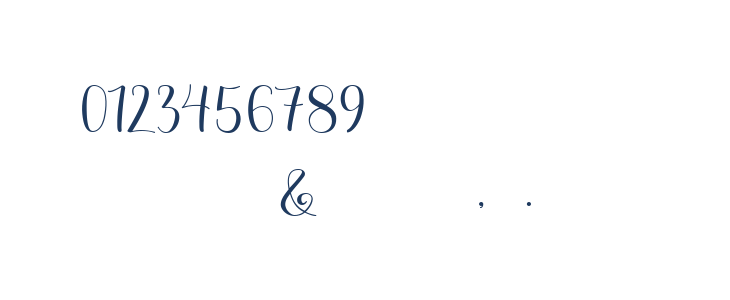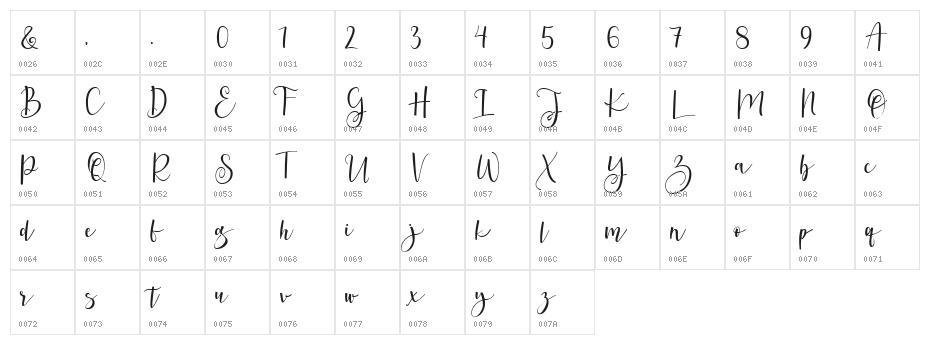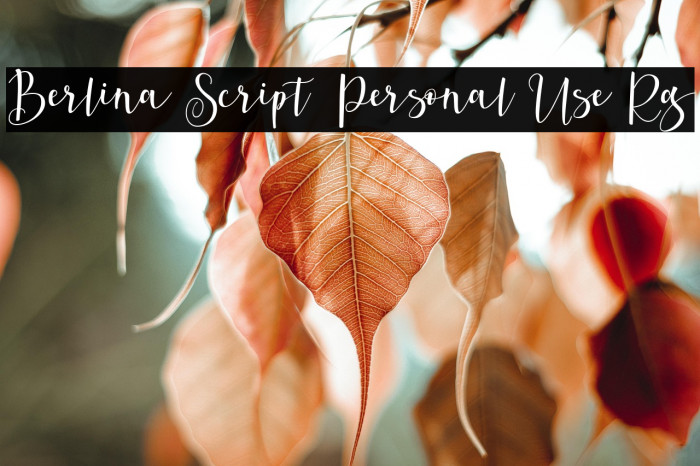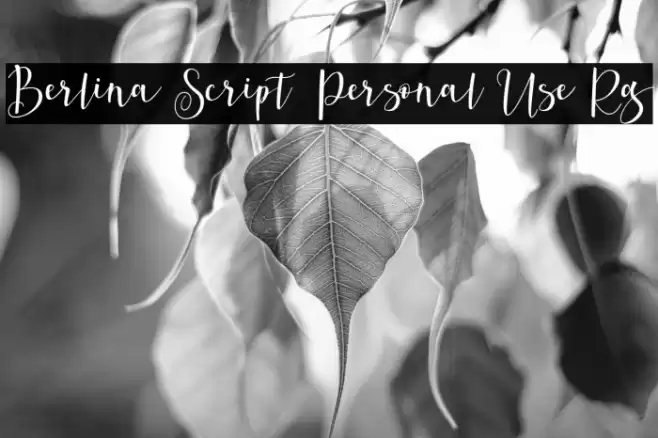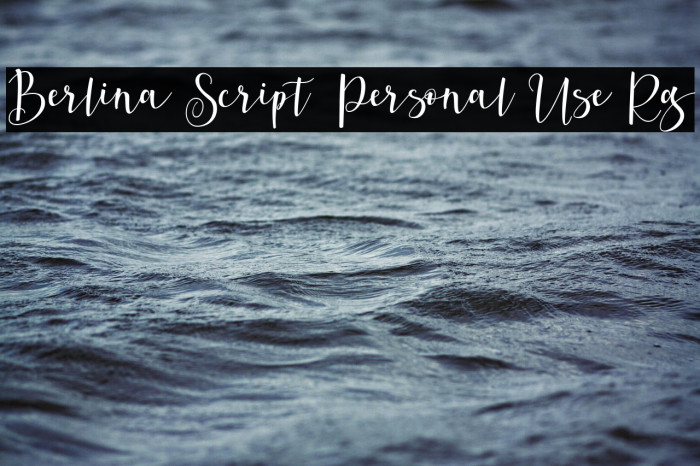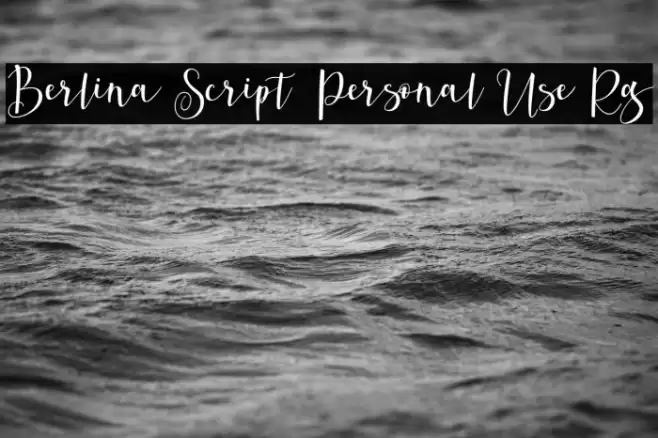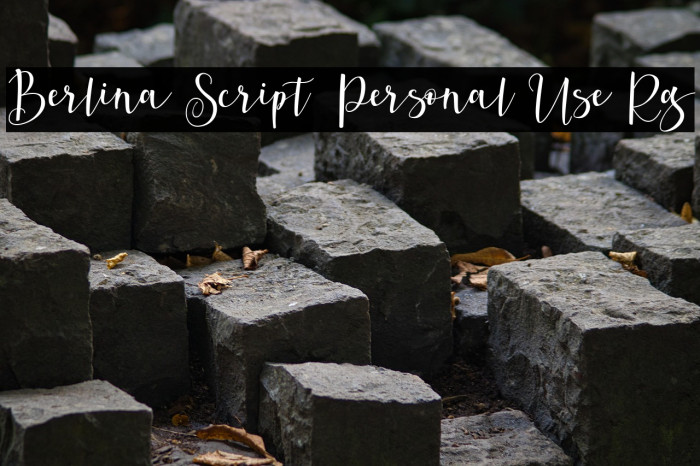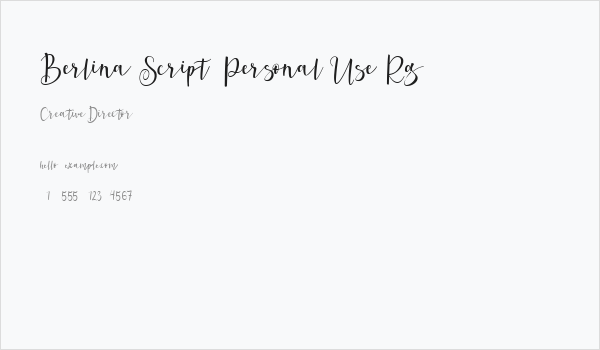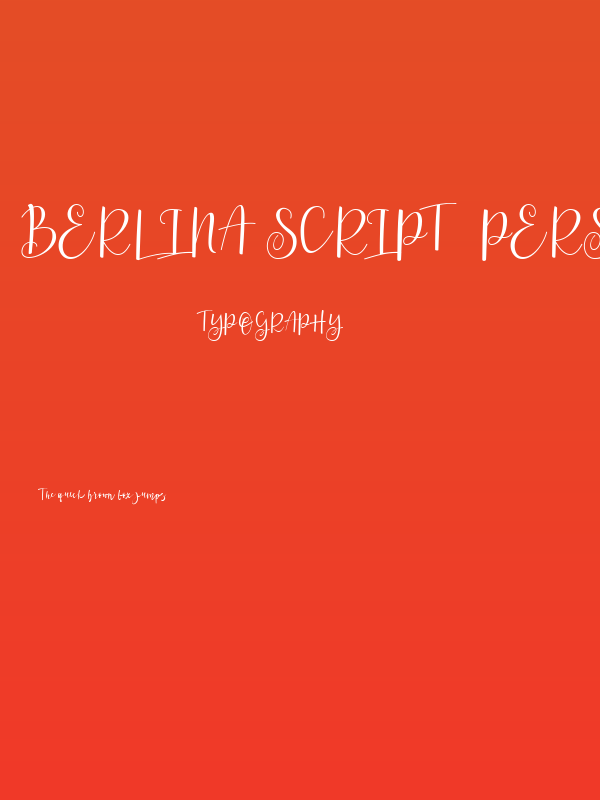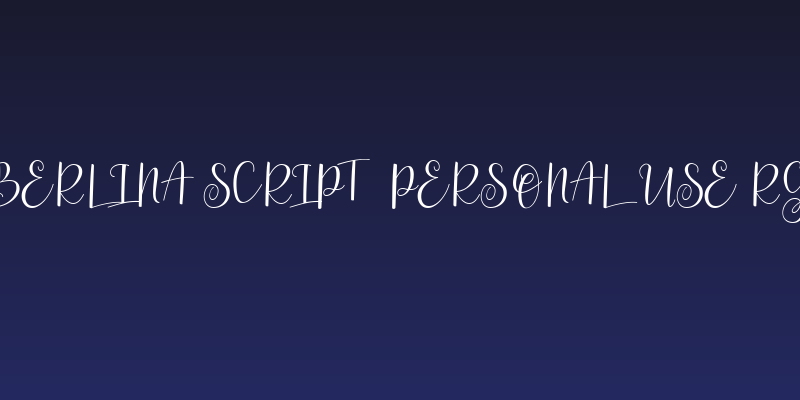
Berlina Script Personal Use Rg Font
Berlina Script Personal Use Rg Description
This elegant script font features a flowing, cursive style with a modern touch. The uppercase letters are characterized by their tall, graceful loops and swashes, adding a sense of sophistication and flair. The lowercase letters maintain a consistent flow, with smooth connections between characters, enhancing readability while retaining an artistic quality. The numerals are stylishly crafted, matching the overall aesthetic of the font. Special characters like the ampersand and period are designed with unique flourishes, making them stand out. This font is perfect for projects that require a personal, handwritten feel with a touch of elegance.